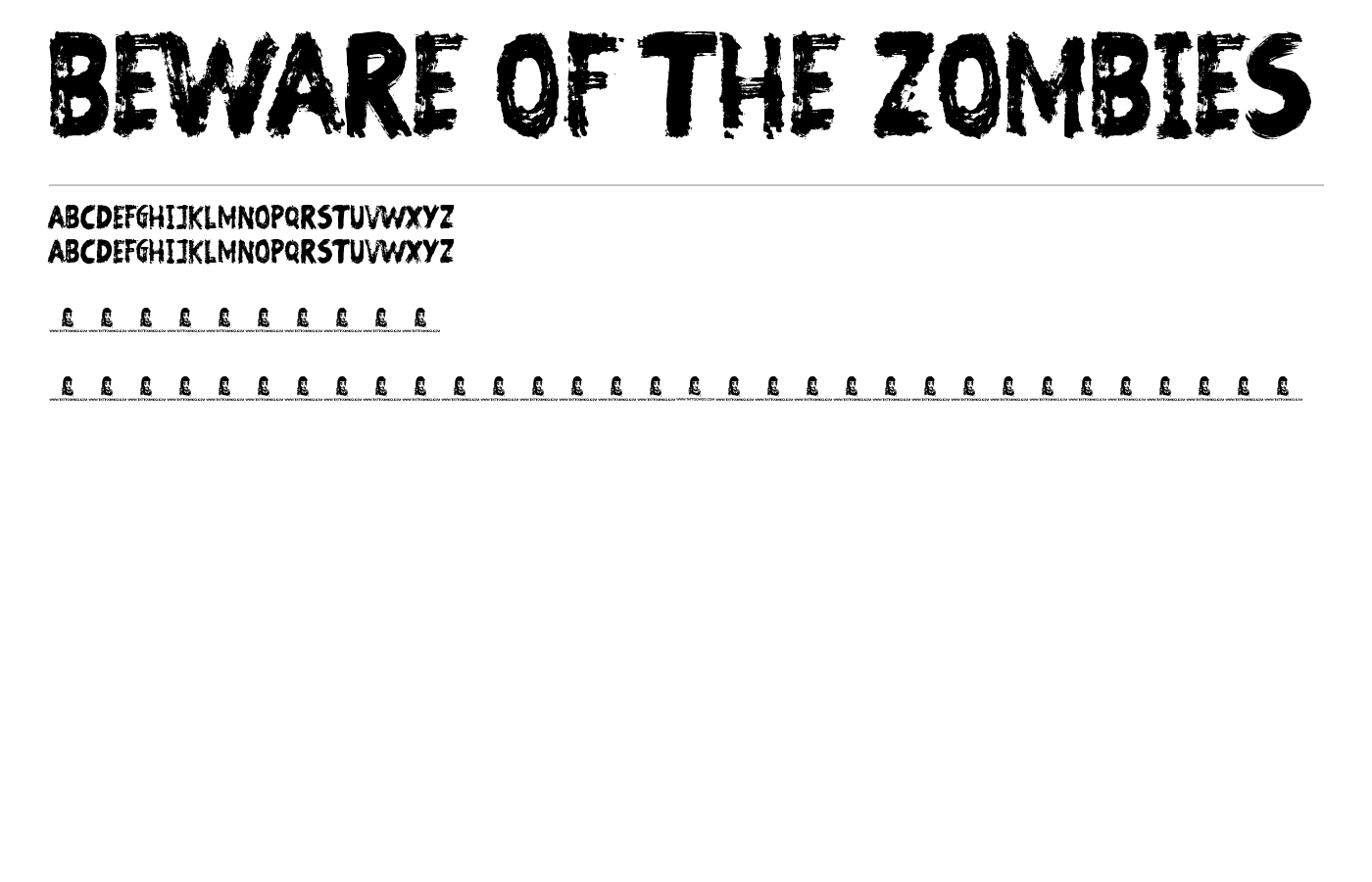
Beware of the Zombies is a bold, distressed sans serif font that features rough, irregular edges giving it a gritty, eerie vibe perfect for horror or Halloween themes. Its all-uppercase design with tightly spaced, heavily textured letterforms creates a strong, attention-grabbing presence ideal for posters, logos, and themed event branding. This font’s spooky, playful personality makes it well-suited for projects seeking a dramatic and unsettling look.
Beware of the Zombies Font
About Beware of the Zombies Font